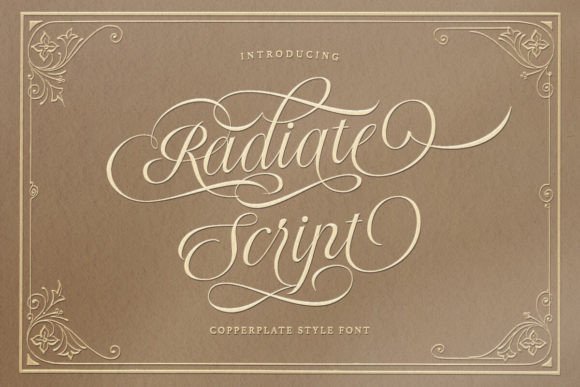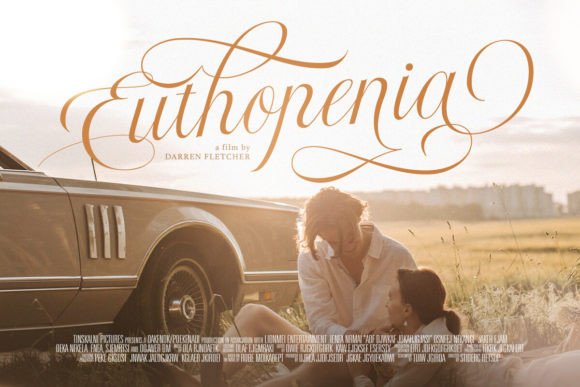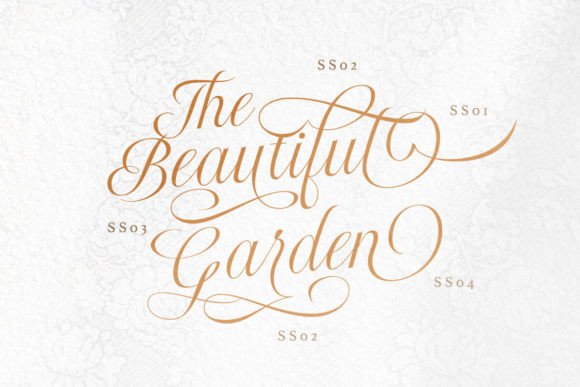
Radiate Script Font
About the Radiate Script Font
Introducing the Radiate Script Font, a beautifully crafted typeface designed to elevate your creative projects. Radiate Script is a stylish wedding script that have many swash alternates! With all the alternate characters, you can make your design more elegant and sophisticated. You can use this font for many purposes, such as quote, and branding, logo, especially wedding invitations. This font also support multi language!
Radiate Script’s elegant and flowing forms are ideal for headlines, short text blocks on invitations, and branding elements where a touch of sophistication is desired. It works particularly well for wedding-related materials, logos for luxury brands, and short quotes needing emphasis. However, its ornate nature makes it unsuitable for body text or UI elements; the intricate details would become illegible at smaller sizes and hinder readability in extended passages.
This script font pairs beautifully with clean sans-serif fonts like Montserrat or Lato for a modern contrast, or with a classic serif like Garamond or Playfair Display for a more traditional feel. For a touch of playful modernity, consider pairing it with a geometric sans-serif such as Futura. These pairings provide visual balance and prevent the design from feeling overly fussy.
Radiate Script projects a sophisticated and romantic personality, lending itself well to projects requiring an air of timeless elegance. Its graceful curves and swashes evoke feelings of luxury and refinement.
Radiate Script Font Usage Examples
Radiate Script Font Example